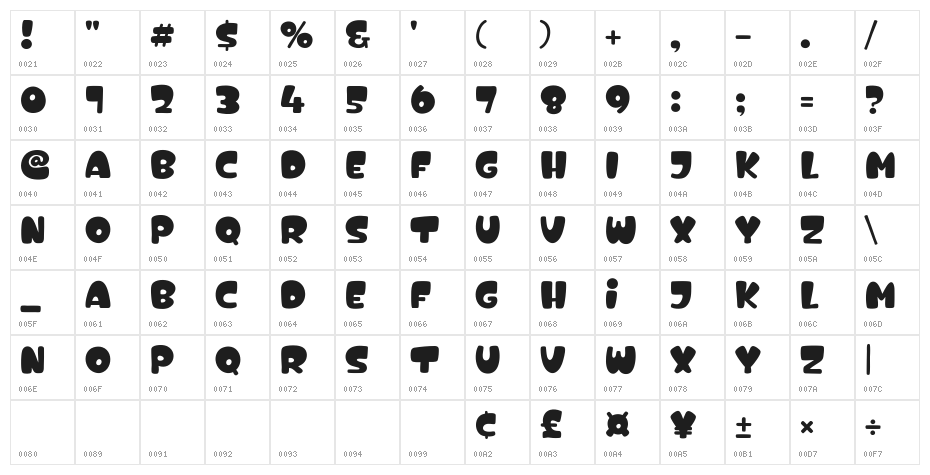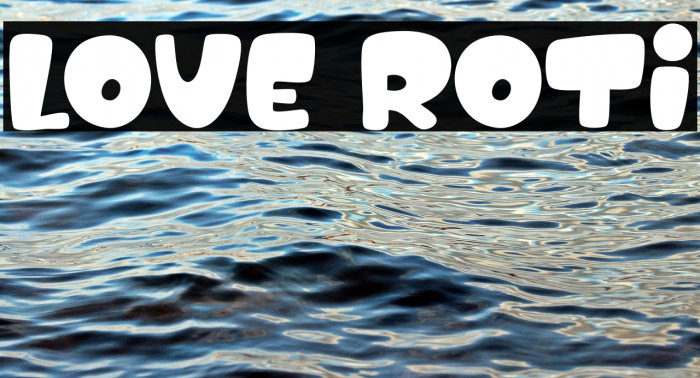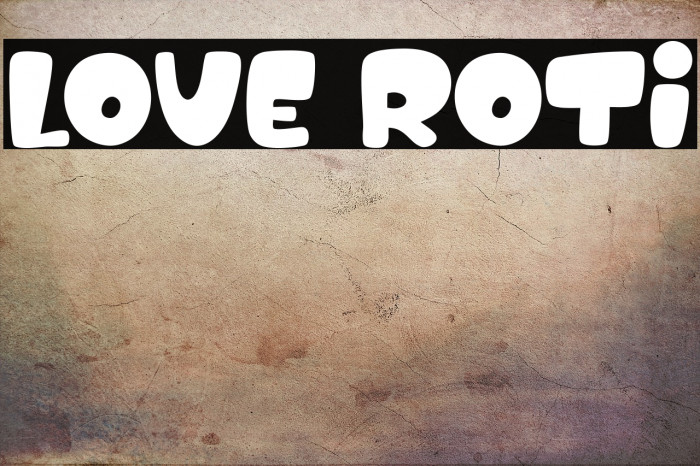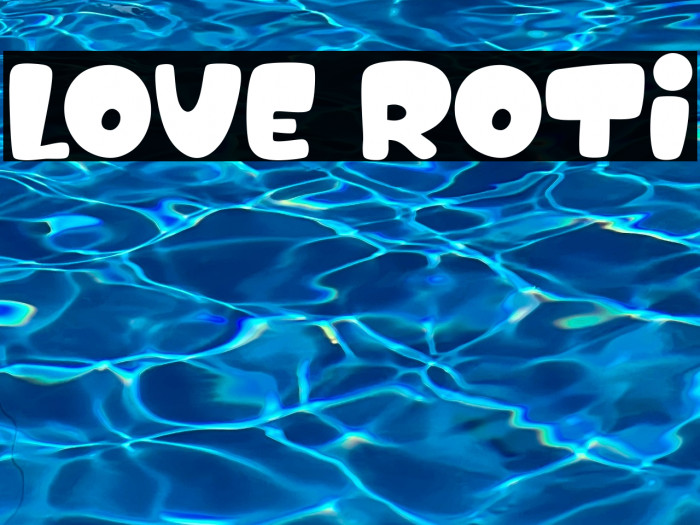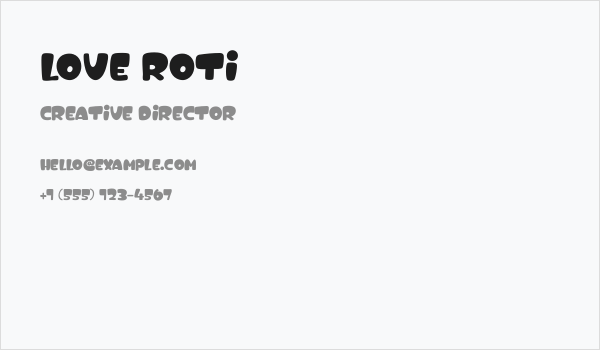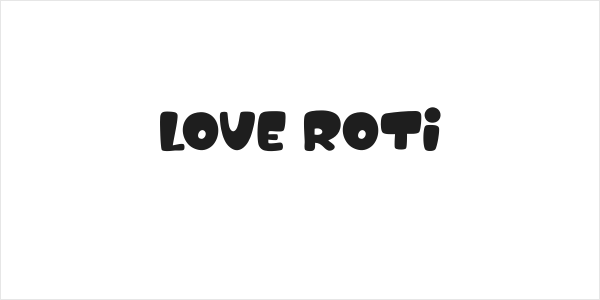
Love Roti Font
Love Roti Description
This playful and bold font features rounded, bubbly characters that convey a sense of fun and whimsy. The letters are thick and uniform, with a consistent stroke width that gives the font a cohesive look. The overall design is reminiscent of retro styles, making it ideal for projects that aim to capture a nostalgic or lighthearted feel. The characters are well-spaced, ensuring readability while maintaining a compact appearance. This font is perfect for creating eye-catching headlines, posters, or branding materials that require a touch of personality and charm.
| Overall Style | Playful, Retro |
| Use Case | Headlines, Posters, Branding |
| Proposed Projects | Perfect for children's books, playful branding, event posters, and retro-themed designs. |